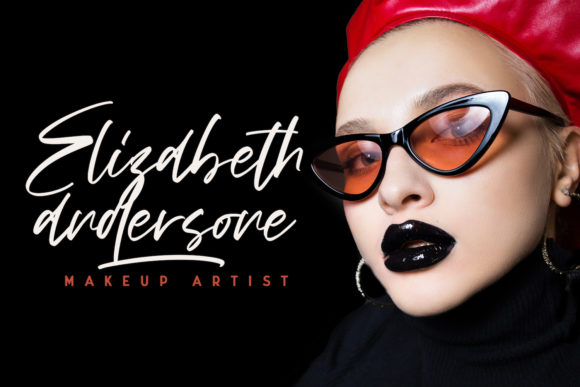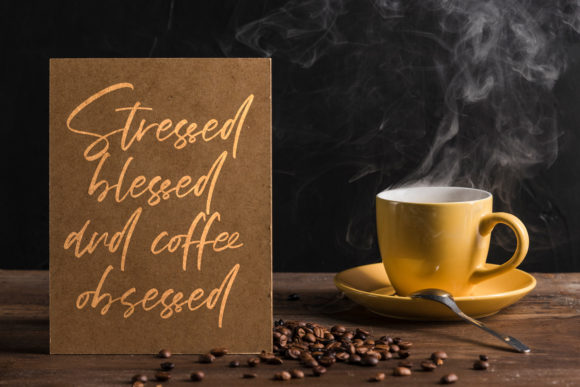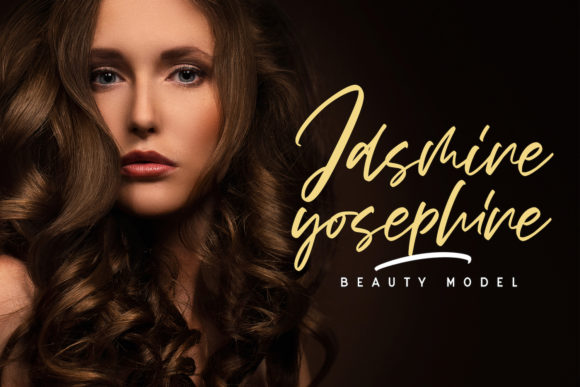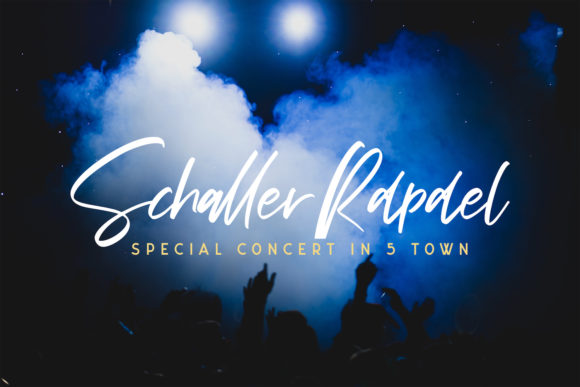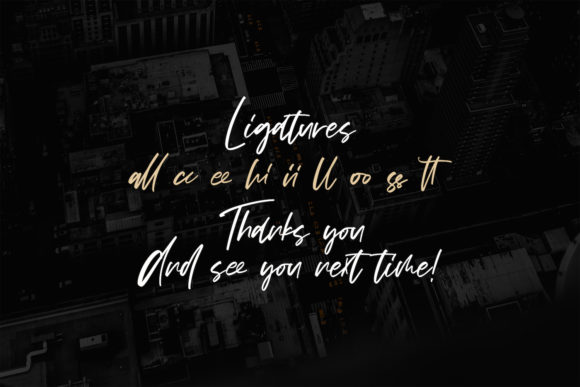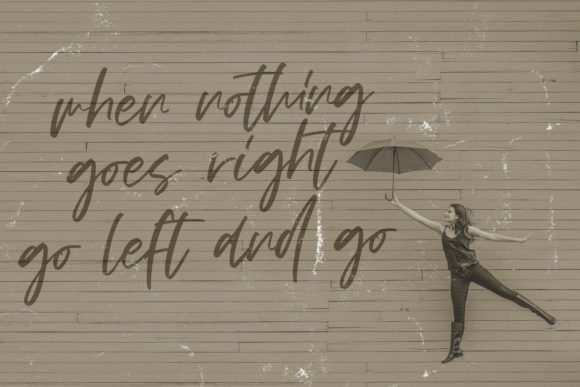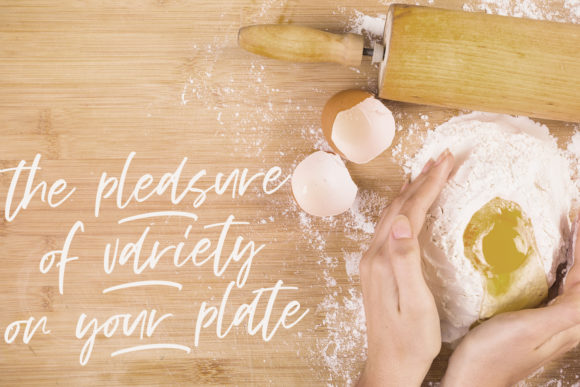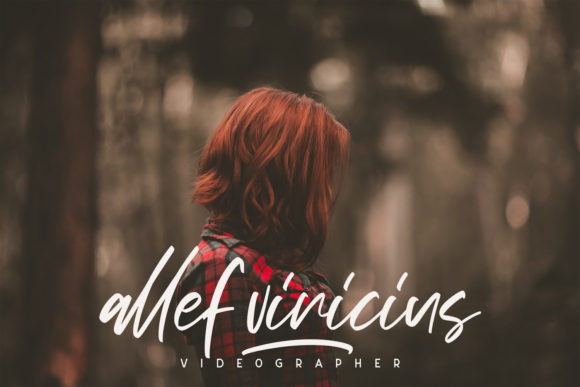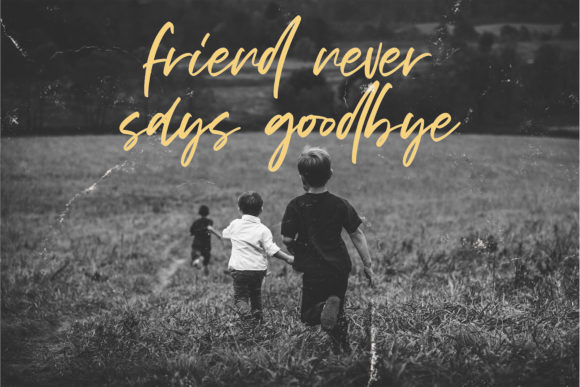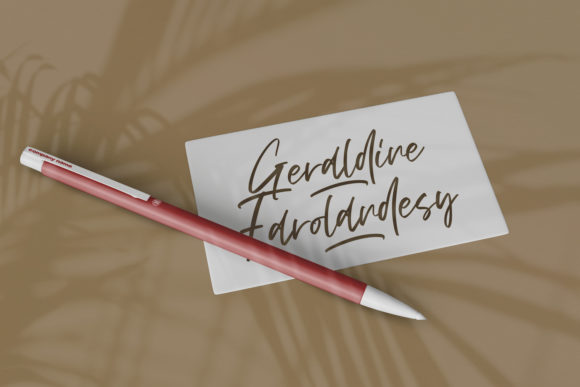
Vezthisory Font
About Vezthisory Font
Vezthisory is a modern and fun handwritten font, created by using a brush pen. Clean and a little bit quirky, this font is the perfect fit for all of your logos, branding, social media, and crafty DIY projects.